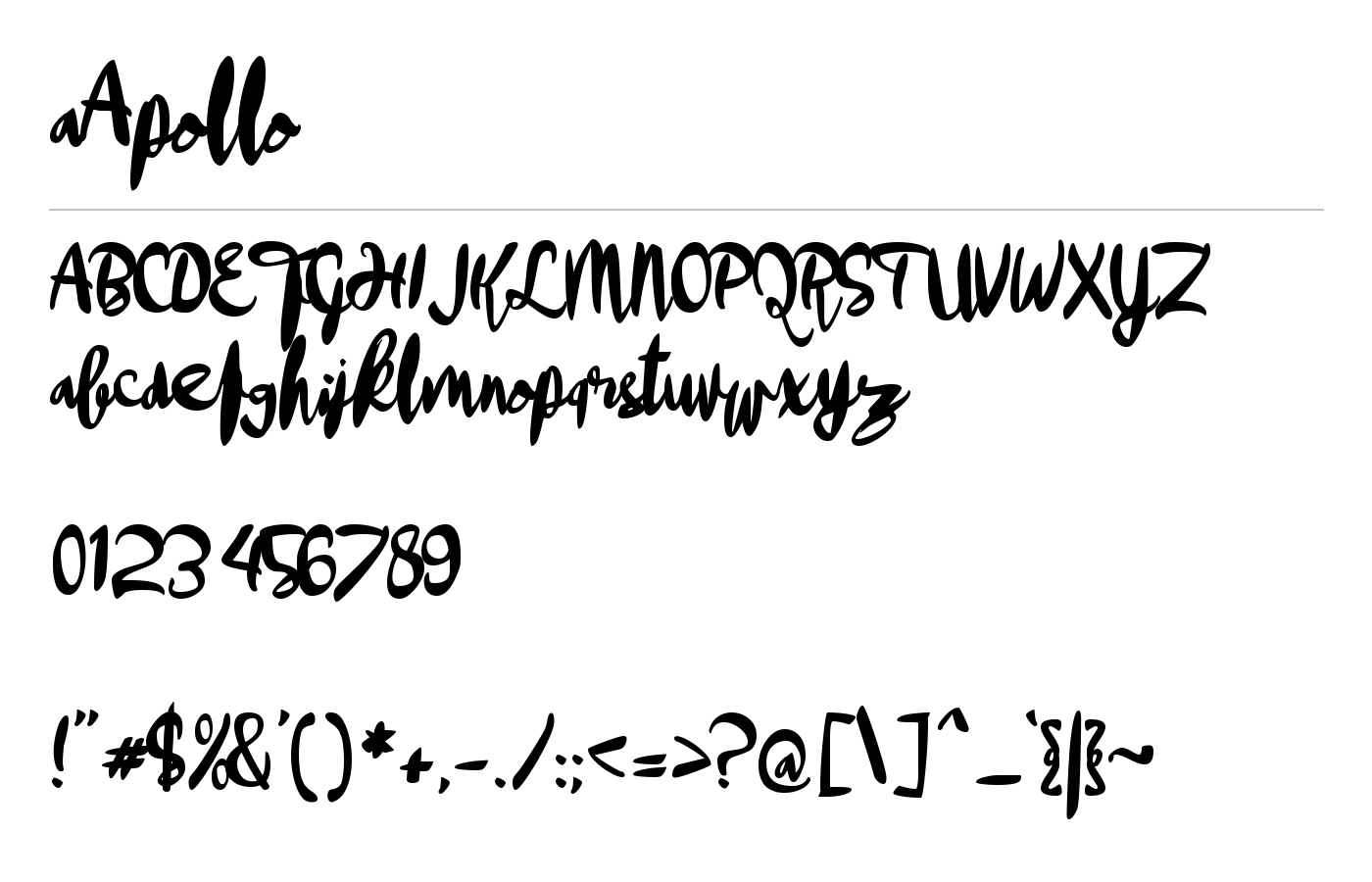
aApollo is a lively, hand-drawn script font with a bold and playful character. Its thick, smooth strokes and casual letterforms add a friendly and artistic touch, making it perfect for creative branding, invitations, and eye-catching headlines where personality and warmth are desired. The font’s energetic style works well for projects aiming to convey approachability and uniqueness.
aApollo Font